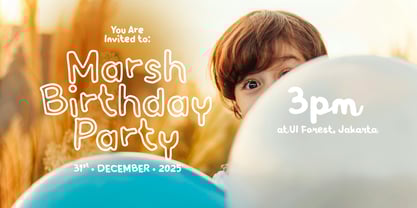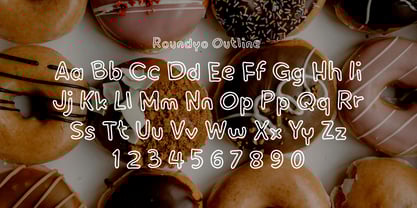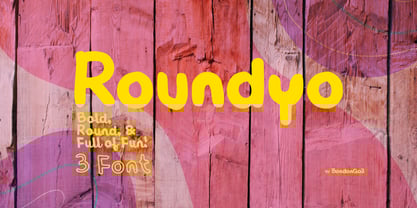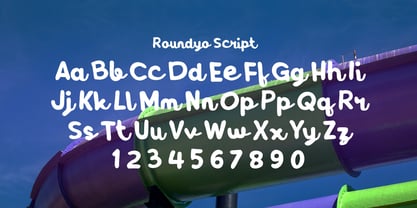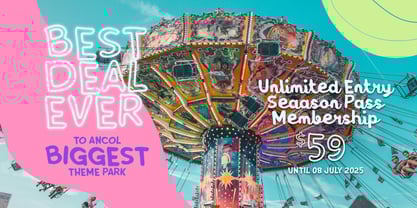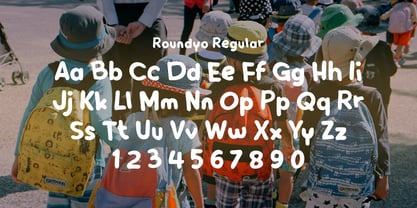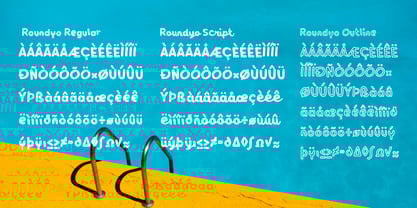
Roundyo
by BondanGail
The Roundyo Font Family was designed by Wahyu Eka Prasetya, Bondan Gail Saputro and published by BondanGail. Roundyo contains 3 styles and family package options.
Roundyo font has a playful and rounded design, giving it a friendly and casual look. Its smooth, bold letters are easy to read, while the slightly irregular shapes create a hand-drawn feel. This unique style makes Roundyo perfect for fun and inviting designs.
With its soft and organic appearance, Roundyo works well for branding, children’s products, or social media graphics. The lack of sharp edges gives it a warm and approachable feel, adding personality and charm to any creative project.